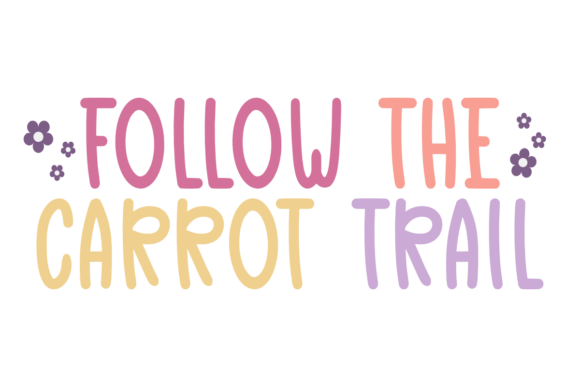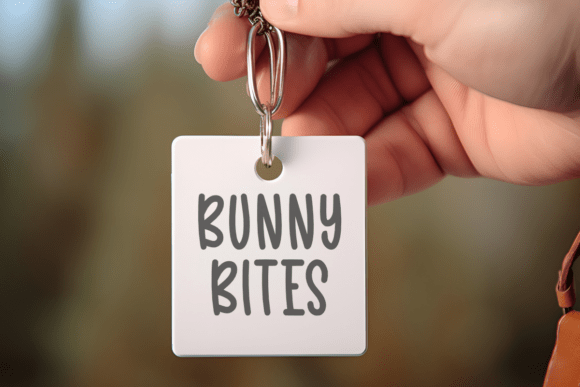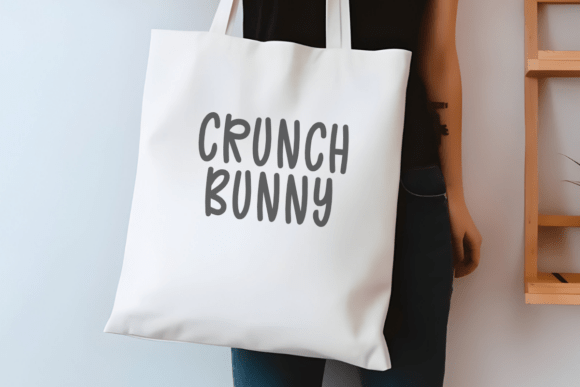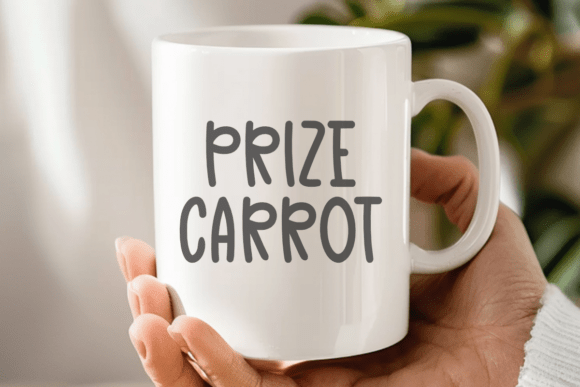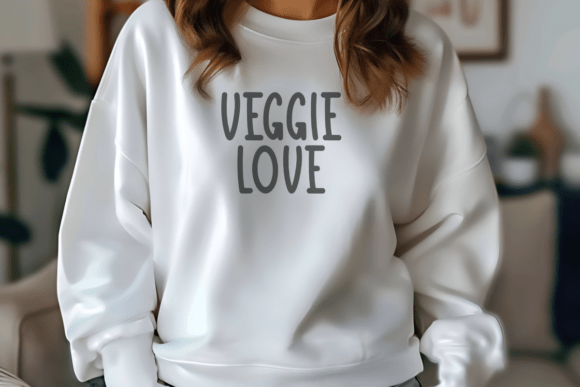
Unleash the Whimsy: Discovering the Perfect Font for Your Next Design Project
Have you ever stared at a blank canvas, waiting for the perfect font to bring your design to life? You know, that moment when everything else fades away, and all you can think about is finding the perfect combination of style and personality to match your creative vision? That’s exactly what happened to me when I stumbled upon the Carrot Playful Font. Its delightful sans-serif design and playful demeanor immediately caught my attention, and I knew I had to share it with fellow designers.
With its rounded letterforms and friendly curves, Carrot Playful Font adds a touch of charm to any project, making it perfect for designs seeking a whimsical and endearing aesthetic. Whether you’re working on a children’s book, a food blog, or a social media campaign, this font is sure to bring a smile to your audience’s faces.
Key Features of Carrot Playful Font
- Font Family: Carrot Playful Font
- Unique Characteristics:
- Hand-drawn, playful design with a modern twist
- Includes over 500 glyphs, including international characters and symbols
Designer Review: Carrot Playful Font
Overall, I think the Carrot Playful Font has a certain je ne sais quoi that could work well for the right project. ✨ Its whimsical feel and rounded edges make it perfect for a children’s book or a brand that wants to convey a sense of playfulness. The font is highly customizable, allowing designers to adjust the spacing and line height to suit their needs.
One of the standout features of Carrot Playful Font is its extensive character set, which includes a wide range of glyphs and symbols. This makes it a great choice for projects that require a lot of customization or have specific requirements for certain languages or scripts.
- ✨ Whimsical feel and rounded edges make it perfect for children’s projects or brands that want to convey playfulness.
- ✨ Highly customizable, allowing designers to adjust spacing and line height.
- ✨ Extensive character set, including a wide range of glyphs and symbols.
- ⚠️ May not be suitable for formal or professional projects, as its playful feel may come across as unprofessional.
- ⚠️ Some users may find the font’s rounded edges and exaggerated curves to be too cartoonish or juvenile.
Overall, I think the Carrot Playful Font is a great choice for the right project, but it may not be suitable for every designer or design brief. With its customization options and extensive character set, it’s definitely worth considering for projects that require a playful or whimsical feel.
For best results, use the Carrot Playful Font in designs where you want to add a playful and modern touch. It’s perfect for children’s book illustrations, food branding, and creative marketing materials.